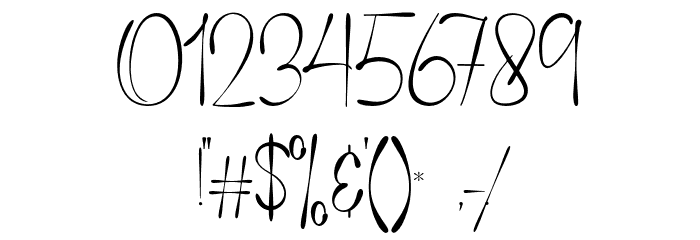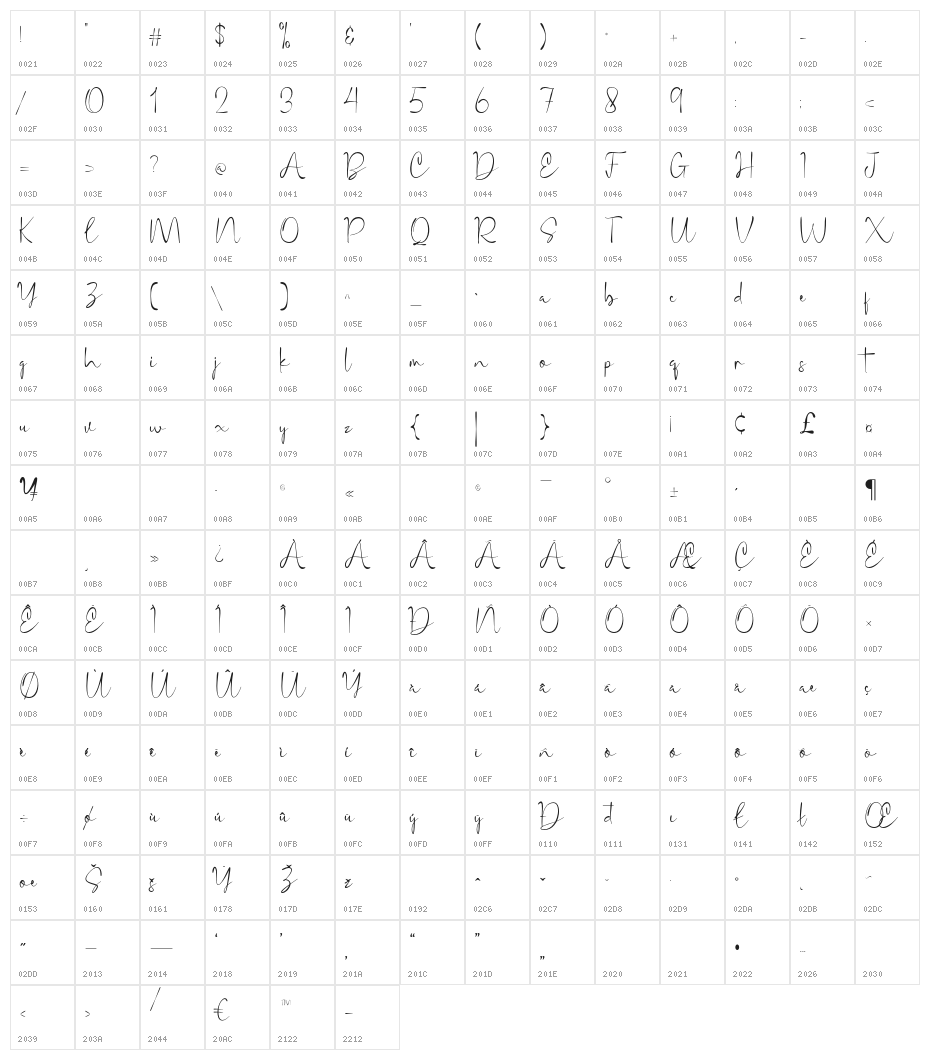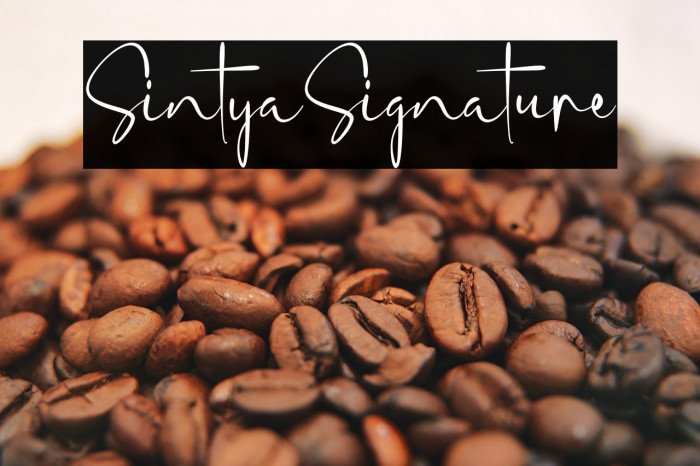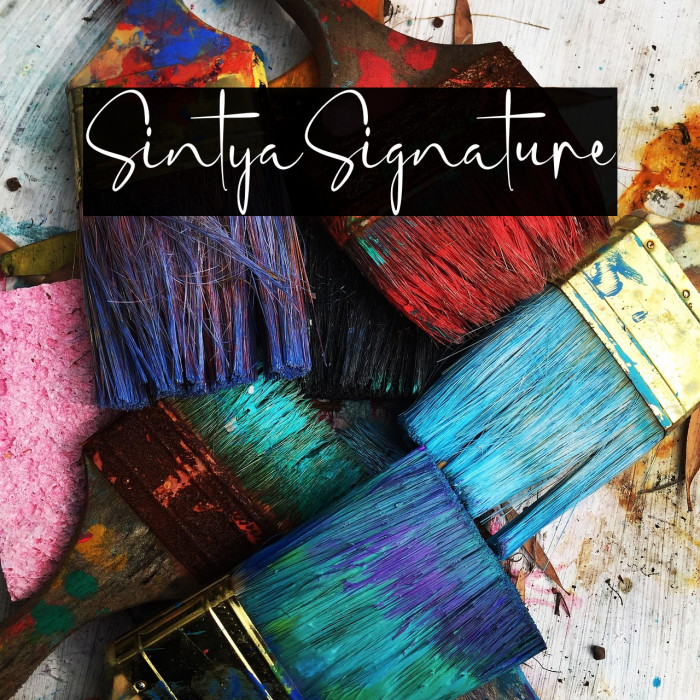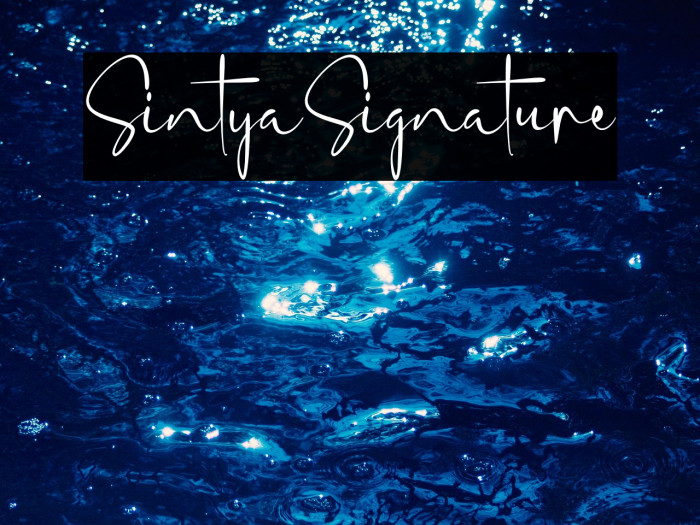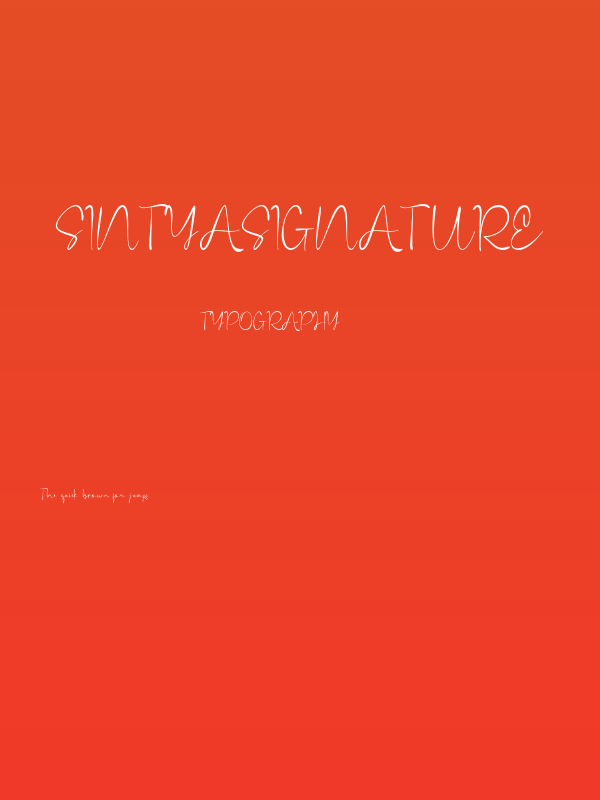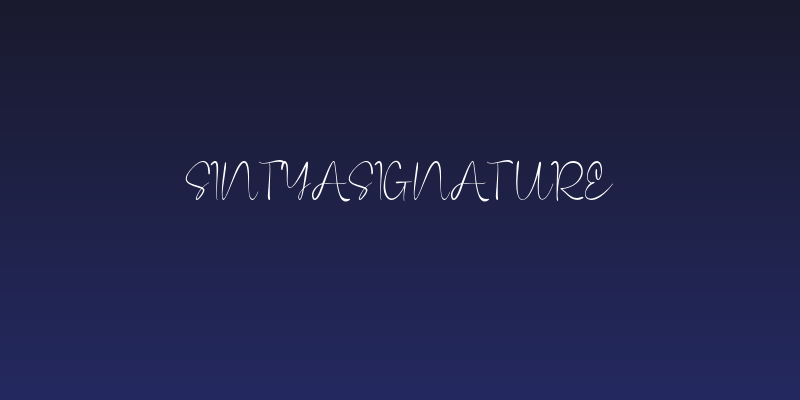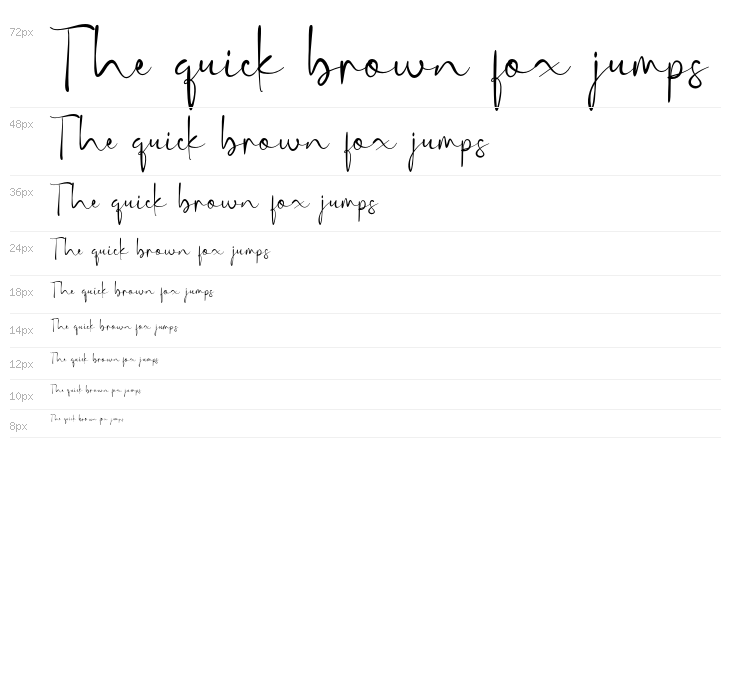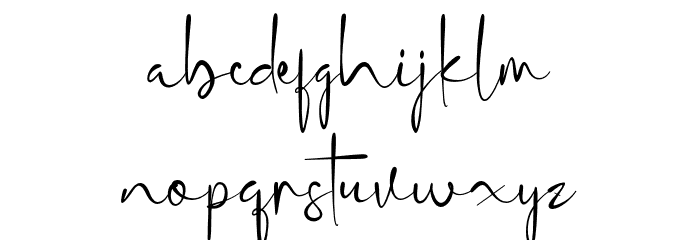
SintyaSignature Font
SintyaSignature Description
This font exudes a modern, handwritten style with an elegant and flowing script. The characters are crafted with a smooth, continuous stroke that mimics natural handwriting, giving it a personal and artistic touch. The uppercase letters are tall and slightly narrow, while the lowercase letters maintain a consistent flow with subtle variations in height and slant. The numerals are distinct and maintain the same fluid style, ensuring readability. Special characters are seamlessly integrated, maintaining the overall aesthetic. This font is perfect for projects that require a personal, yet sophisticated touch.
| Proposed Projects | Ideal for wedding invitations, personal branding, greeting cards, and artistic projects. |